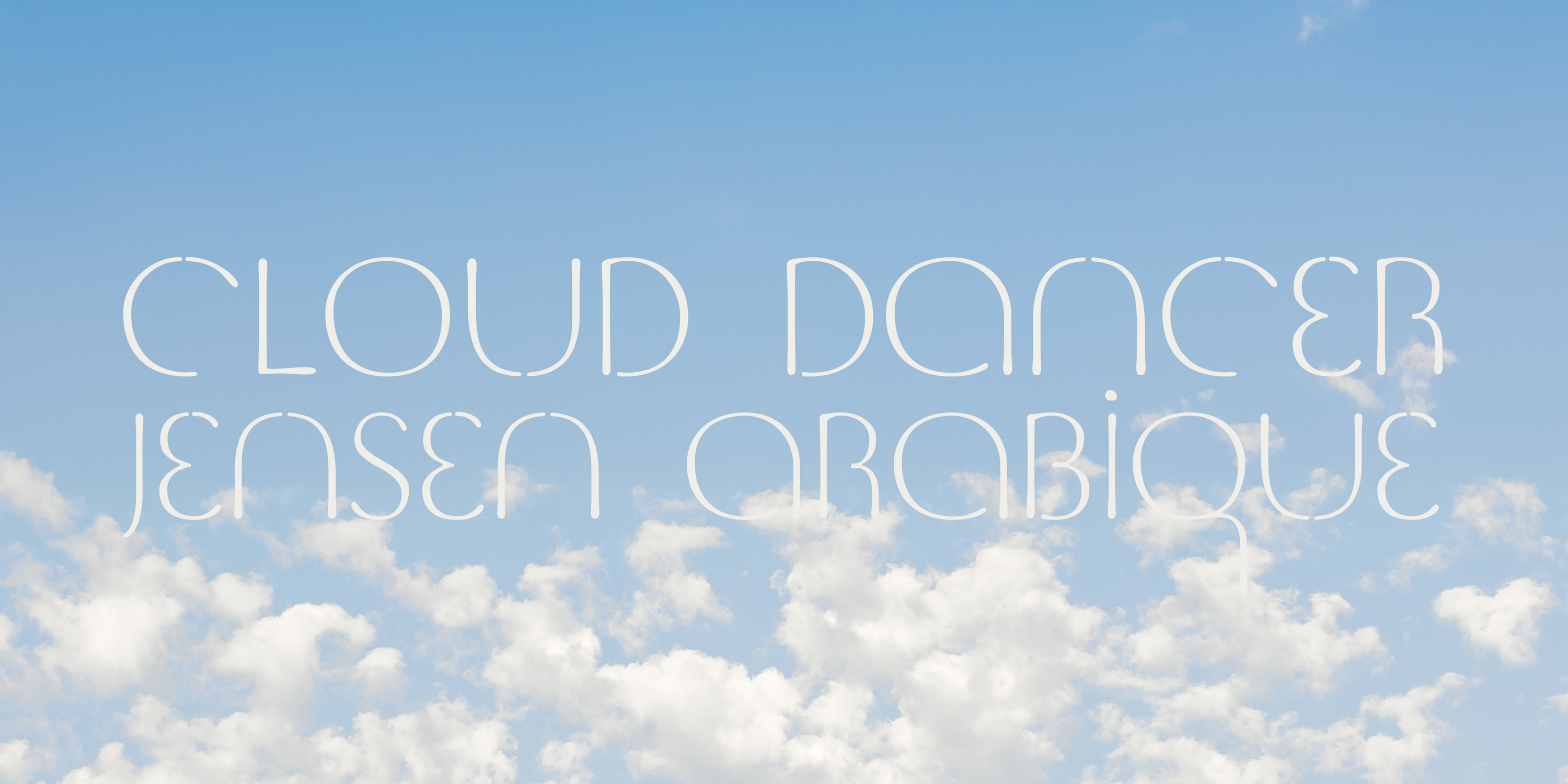
Monotype Gives Serene Typographic Expression to the Pantone Color of the Year 2026 PANTONE 11-4201 Cloud Dancer
- Pantone Color of the Year 2026 and, for the first time, its typographic expression, have been unveiled December 4, 2025, in NYC.
- Inspired by Pantone Color of the Year 2026, PANTONE 11-4201 Cloud Dancer is paired by Monotype with revived typeface Jensen Arabique to embody nostalgia for simpler, more mindful times.
WOBURN, Mass., December 4, 2026 — Monotype Imaging Inc. has selected the first ever typographic expression for the Pantone Color of the Year 2026, PANTONE 11-4201 Cloud Dancer, announced today. Selected by Monotype Senior Executive Creative Type Director Charles Nix, Jensen Arabique™ is a typeface created more than thirty years ago by independent type designer Jason Castle after letter designs by Gustav Jensen.
The Pantone Color of the Year 2026 PANTONE 11-4201 Cloud Dancer highlights a desire for simplicity and rest. It makes an ideal pairing with Jensen Arabique’s calm forms and handmade quality, balancing serenity with contemporary expression.
Pairing typefaces with color is at the heart of every designer’s creative decision-making process. It’s also intrinsic to creative expression across the board, with 79% of Gen Z and 78% of Millennial respondents in Monotype’s 2025 Fonts, Feels, & Reels study reporting that font choice is important for creating engaging posts on social media.
With hundreds of thousands of individual typefaces now readily available, each with their own distinct visual tone of voice, and the increasing need for differentiation in an image-rich and information-saturated world, the quality of creative work is increasingly defined by the process of discovery and pairing.
Nix selected the typeface using a blend of typographic experience, cultural reference points, hand-drawn sketches of letter forms, and a suite of Monotype search and discovery tools, including WhatTheFont and emerging Monotype AI search tools. Having narrowed the choice of expression down to a shortlist of candidate typefaces, Nix chose Jensen Arabique for its elegance, legibility, and ability to harmonize with the PANTONE 11-4201 Cloud Dancer’s embodiment of calm, tranquility, and mindfulness.
Originally created and digitized in the 1990s by independent type designer Jason Castle of CastleType, the typeface was based on lettering by designer Gustav Jensen, featured in a rare 1933 alphabet sample book.
At the Pantone Color of the Year 2026 launch event on December 4 in NYC, a neon installation set in Jensen Arabique can be found in the gallery space, illustrating how type and color paired together create a dynamic, immersive experience.
Creating a typographic expression inspired by the Pantone Color of the Year 2026 underscores the symbiotic relationship between type and color which, when paired effectively, can interplay in what Nix calls “creative synesthesia.” The partnership between Monotype and Pantone demonstrates how thoughtfully selected pairings can amplify mood, personality, and cultural relevance. It also responds to a growing need among creative professionals for high-quality, AI-powered font selection tools, enabling discovery, experimentation, and visually cohesive design choices.
“It is wonderful to see Jensen Arabique, which has been special to me for a long time, striking a chord with the times we are living in,” said Jason Castle, founder of CastleType. “When I first created this font decades ago, I thought the forms were elegant and calming. The nature of type is that we never can predict where or when a design will resonate, and it is exciting to see it find a new meaning in a modern context.”
Charles Nix, Senior Executive Creative Director at Monotype, said, “In synesthesia, one sense evokes another. Creatives are ‘cultural synesthetes,’ using instinct, experience, and type tools to pair color and type every day to convey emotion and meaning. But this year is the first time we’ve ever given typographic expression inspired by the Pantone Color of the Year, pairing Jensen Arabique with this year’s selection of PANTONE 11-4201 Cloud Dancer. Design is curation. Color thirsts for type and type thirsts for color. Finding that perfect pairing in a world of abundant creative assets is an ever-evolving art — now aided by powerful search and discovery tools, including AI.”